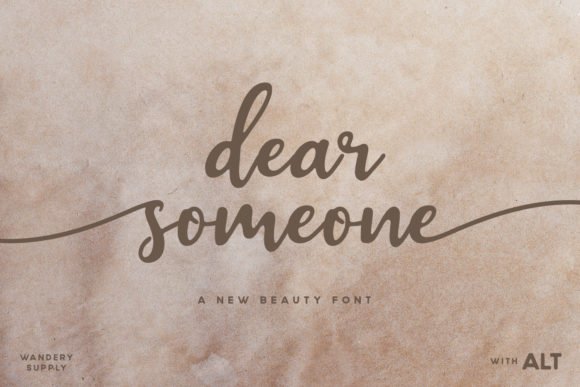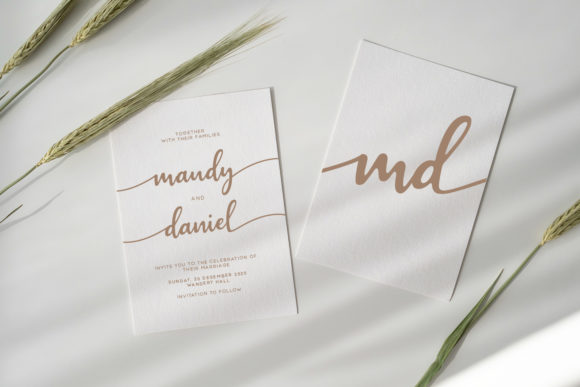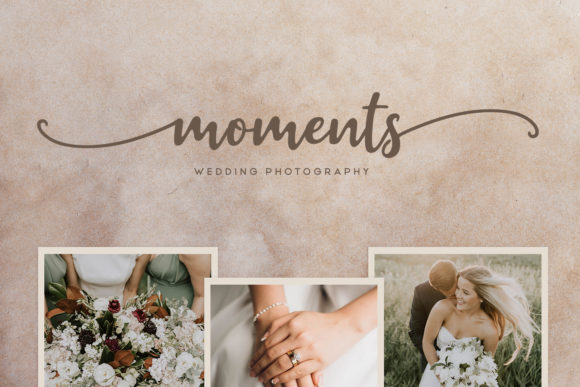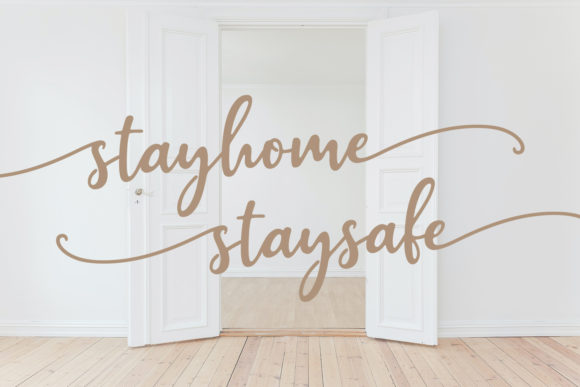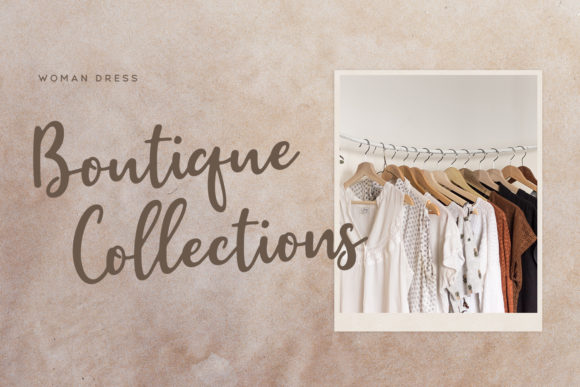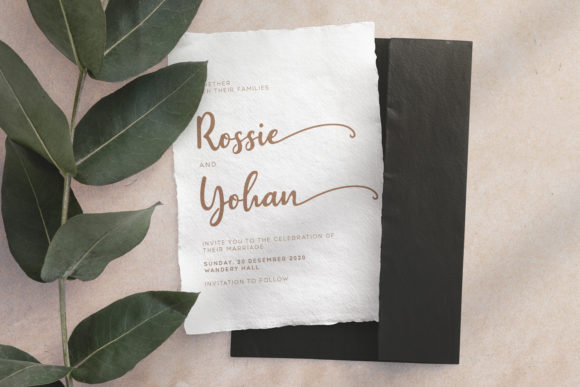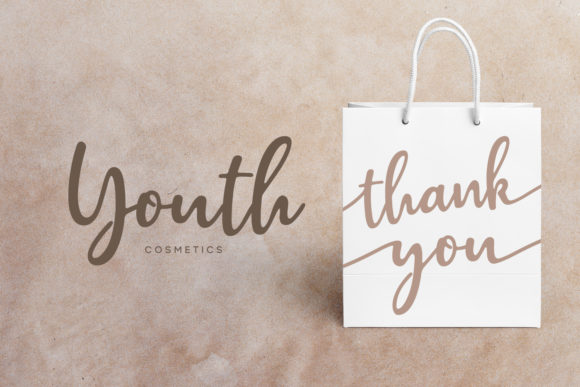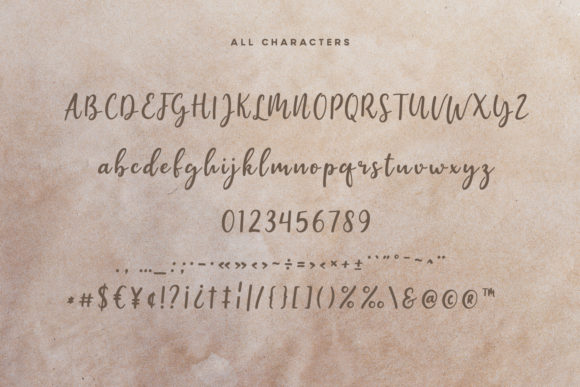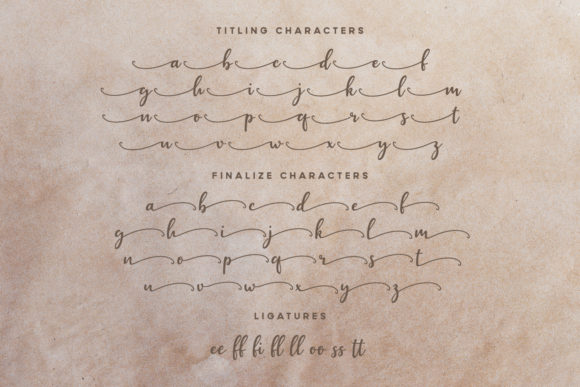
Dear Someone Font
About Dear Someone Font
Dear Someone is a modern and beautiful script font. Fall in love with its authentic feel and use it to create gorgeous wedding invitations, beautiful stationary art, eye-catching social media posts, and cute greeting cards.